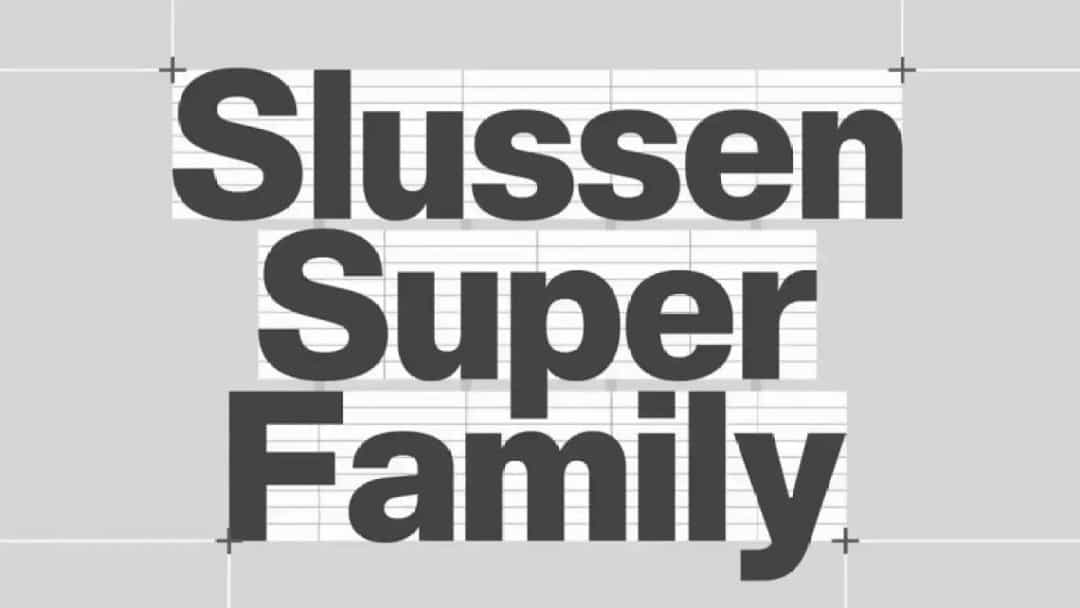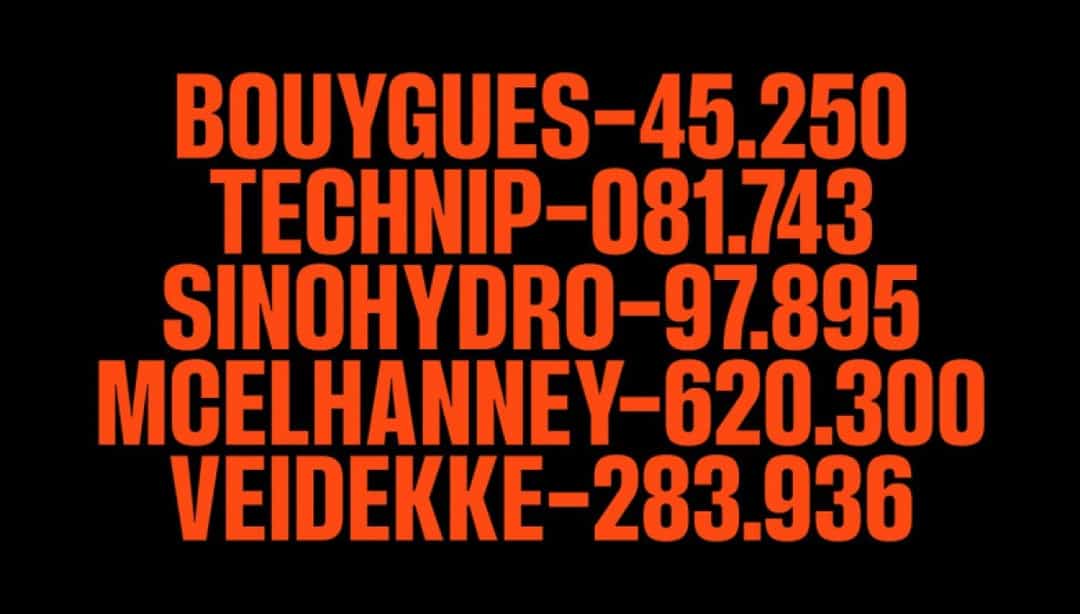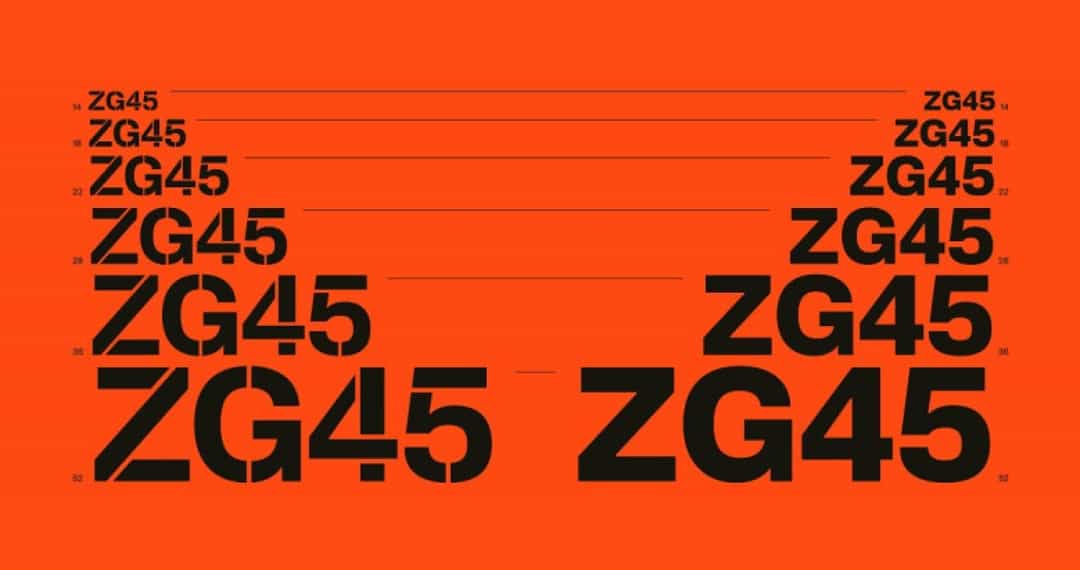
Slussen Super is an elegant Grotesk sans serif font designed to capture readers’ attention, taking inspiration from building sites’ rhythm and organization. This font’s aesthetic skeleton boasts more acute edges compared to Neo-grotesque; these sharp lines contrast nicely with its flat ends and occasional contrast in letterforms – qualities which will ensure Slussen draws readers’ eyes!